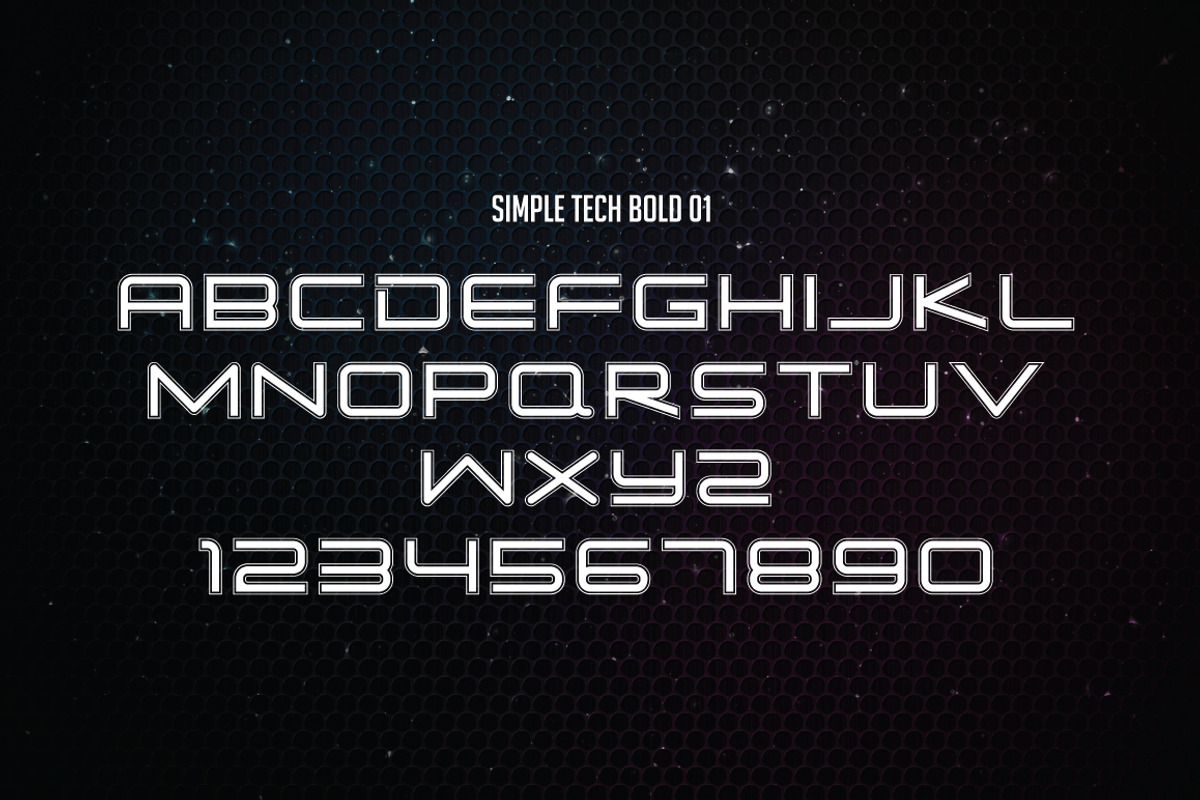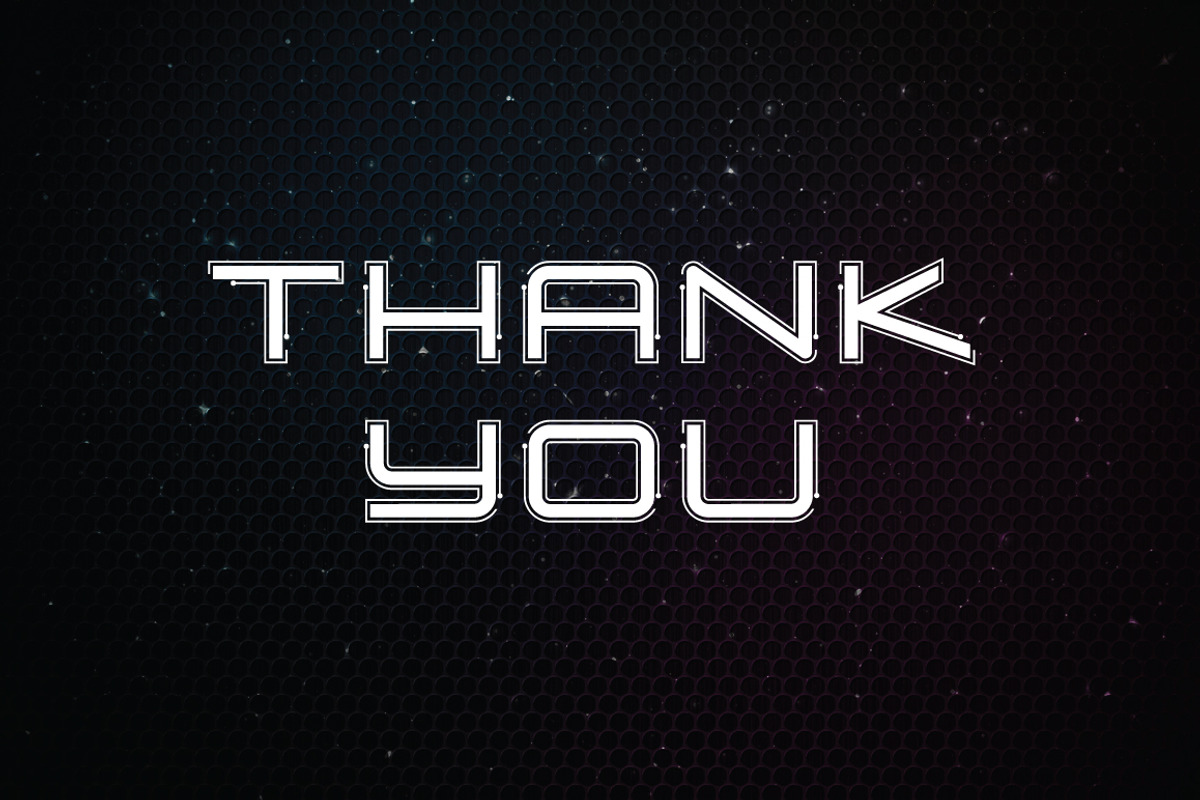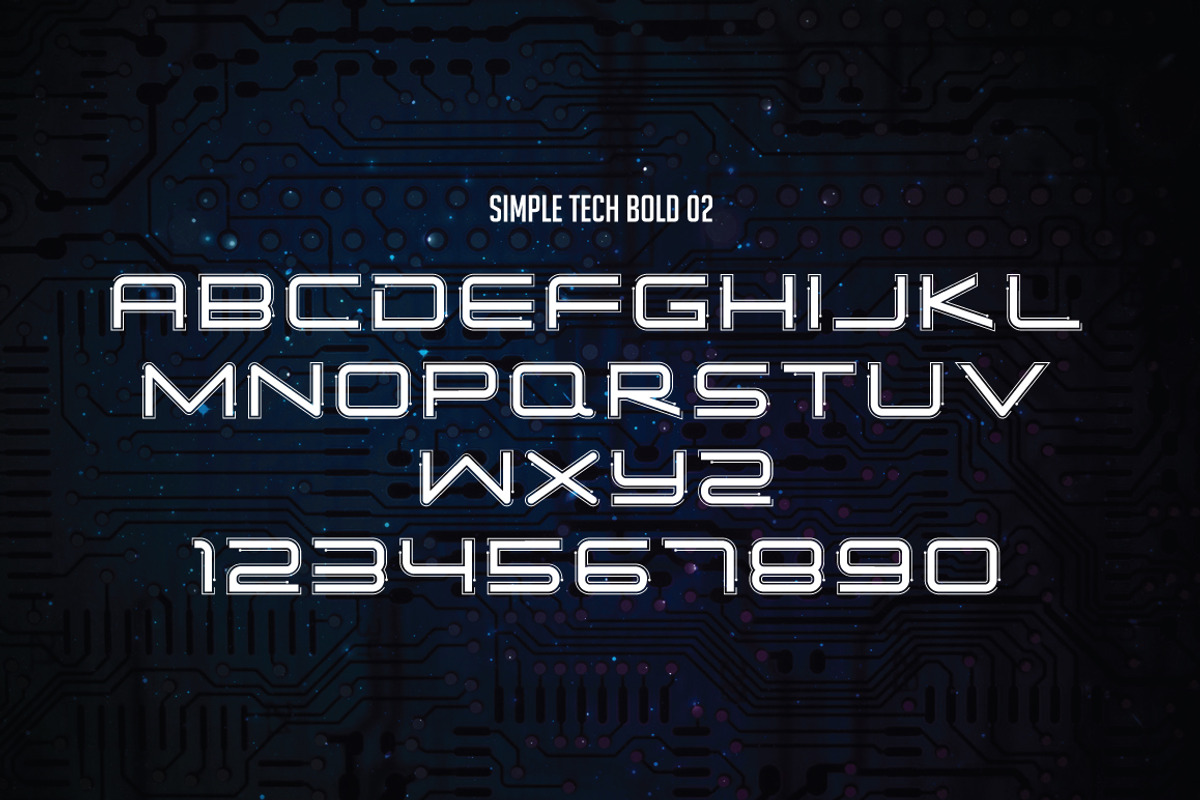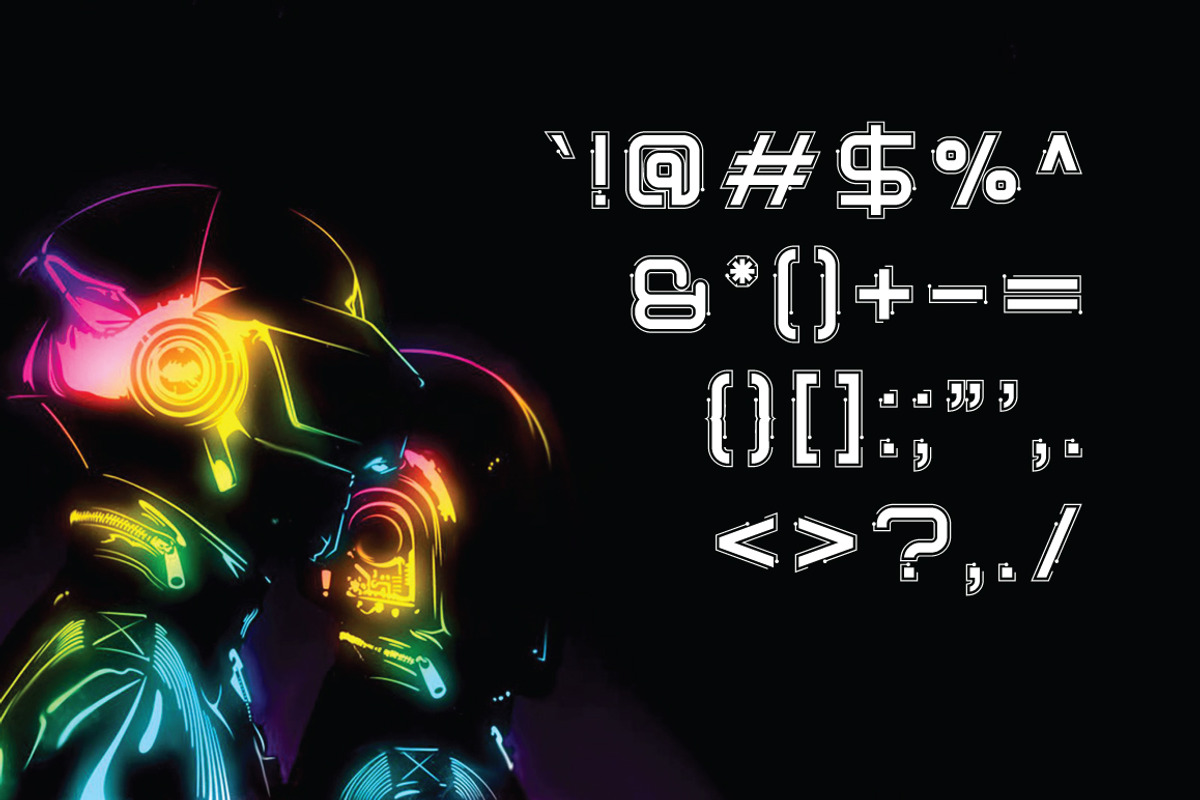
Simple Tech
Simple Tech is a strong font family and sophisticated sans serif that will easily become a modern and classic typeface in your design. A balance of hard lines and smooth curves. Each font in the family can stand on its own, dynamic and authoritative in their own right. It featured to help you to uses for labeling, logo, clothing, magazines, movie title, flyer title, gigs or album cover.